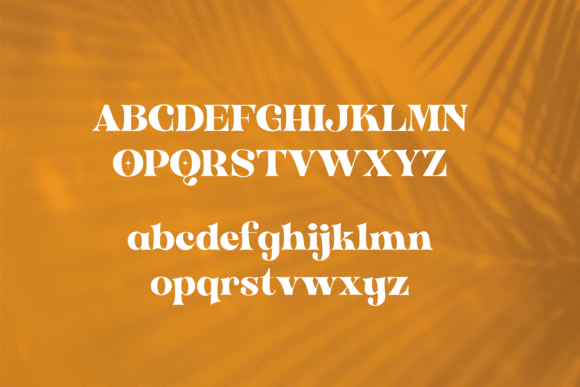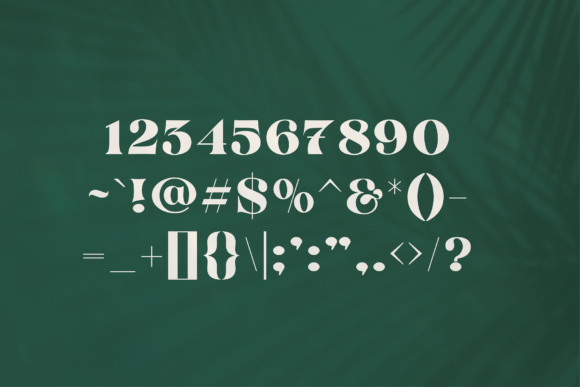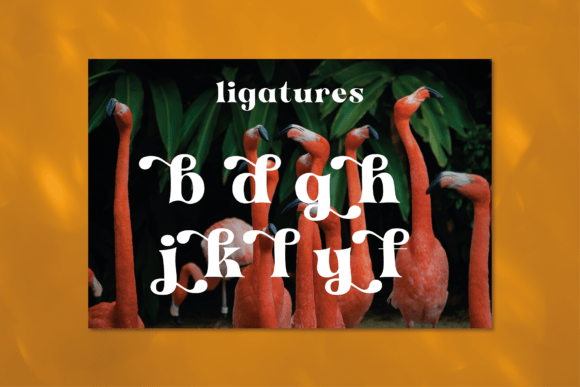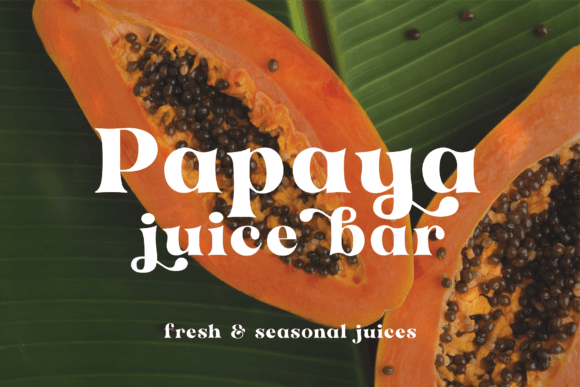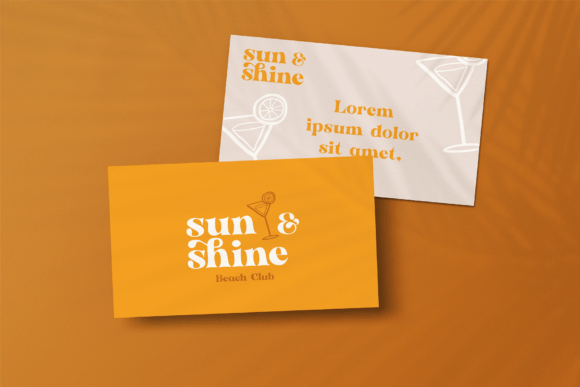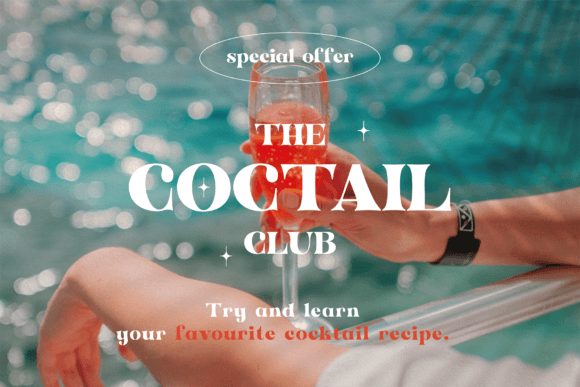
Discover the Timeless Charm of the Antigua Font
You’ve spent hours brainstorming, sketching, and refining your design concept, only to find the perfect typeface to bring it all together. The moment you see your words come alive in a font that perfectly captures the essence of your message, you know you’ve hit the jackpot. That’s the magic of the Antigua Font.
With its bold, elegant design, the Antigua Font is the perfect addition to any designer’s toolkit. Available in regular and outline styles, this versatile typeface is ideal for branding, packaging, posters, social media, and magazines. Whether you’re working on a high-end campaign or a personal project, the Antigua Font is sure to make your design stand out. Its simplicity, elegance, and memorability make it a valuable asset for any designer looking to create impactful and engaging content.
Antigua Font Key Features
- Unique Characteristics: The Antigua font features a unique, elegant, and ornate design with intricate details, making it perfect for formal and professional applications.
- Font Weight and Style: The font is available in Regular, Bold, Italic, and Bold Italic weights, providing flexibility for designers to choose the perfect style for their project.
- Scalability: The Antigua font is designed to be highly scalable, ensuring that it remains legible and visually appealing even at small font sizes.
Review of Antigua Font
Overall, I think the Antigua Font has some great qualities that make it a solid choice for designers.
- The Antigua Font has a unique, elegant aesthetic that’s perfect for creating a sense of sophistication and luxury. It’s ideal for high-end branding, fine art, or anything that requires a touch of refinement.
- The font is highly legible, even at smaller sizes, which makes it a great choice for body text or captions.
- The Antigua Font has a wide range of weights and styles, giving designers a lot of flexibility when it comes to creating custom typography.
- The Antigua Font can feel a bit too ornate for some projects, which may make it difficult to read or use in large quantities.
- The font is not as versatile as some other options, and may not be the best choice for projects that require a more modern or edgy look.
- The Antigua Font is not as widely supported as some other fonts, which may cause issues with compatibility or rendering in certain applications.
While the Antigua Font has some limitations, I think it’s a great choice for designers who want to add a touch of elegance and sophistication to their work. With its unique aesthetic and high legibility, it’s a solid choice for a wide range of projects.
Tips for Getting the Most Out of Antigua Font
Antigua Font is a versatile font that works well in a variety of contexts. Here are some tips for getting the most out of it:
- Use it for formal or professional documents to add a touch of elegance
- Pair it with bold or italic fonts for a striking contrast
- Use it for headings or titles to create a clear visual hierarchy
Antigua Font is commonly used in:
- Use the font for headings and subheadings to emphasize the travel information.
- Combine the font with vintage-style images and illustrations to create a cohesive look.
Q: What is the recommended font size for optimal readability with Antigua Font?
The recommended font size for optimal readability with Antigua Font is between 12-14 points for body text. However, this may vary depending on the specific design context and the intended audience.
Q: Is Antigua Font compatible with screen readers and other assistive technologies?
Yes, Antigua Font is designed to be compatible with screen readers and other assistive technologies. However, it’s always a good idea to test the font in different environments to ensure optimal accessibility.